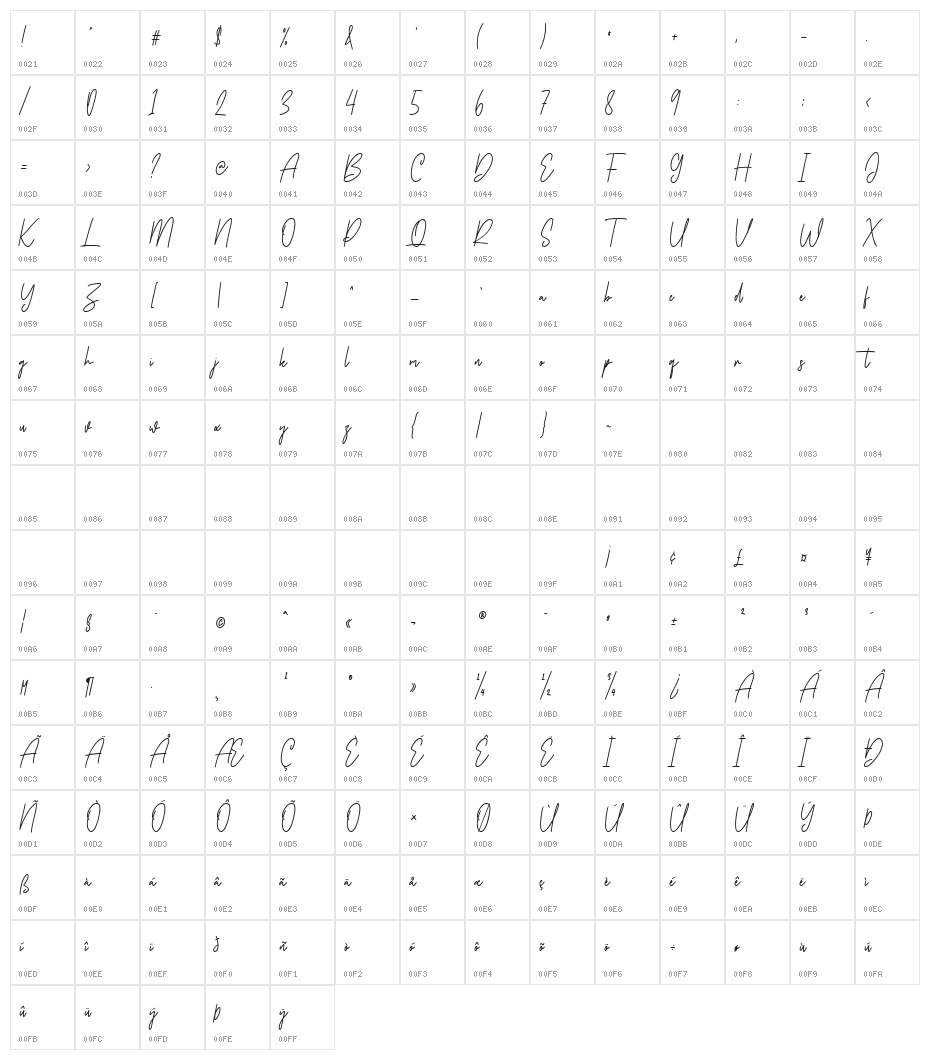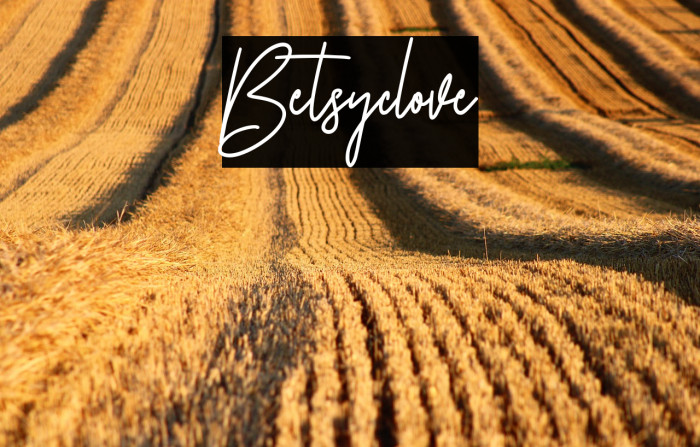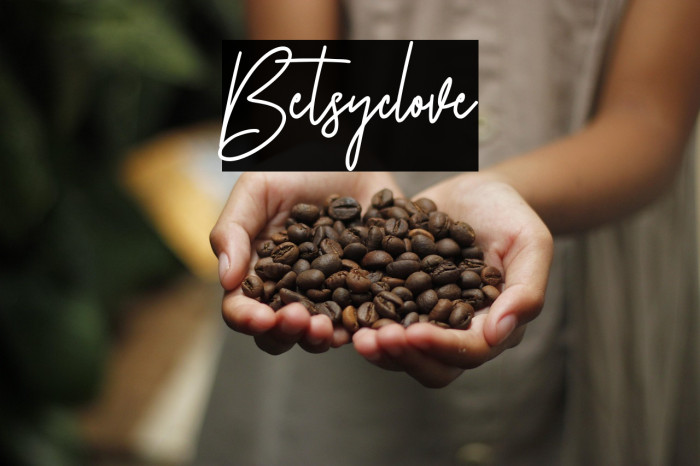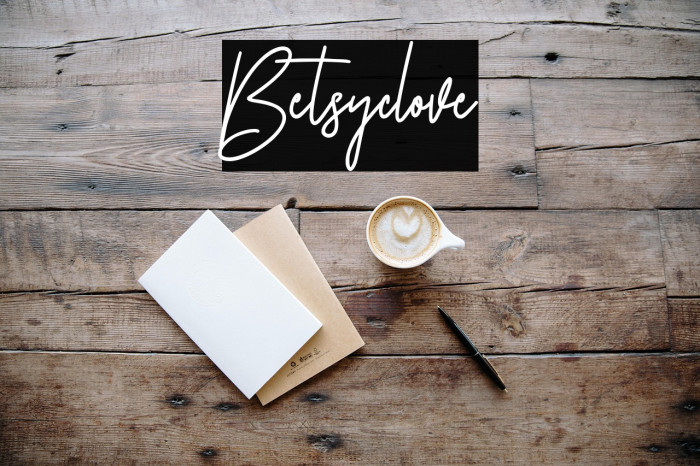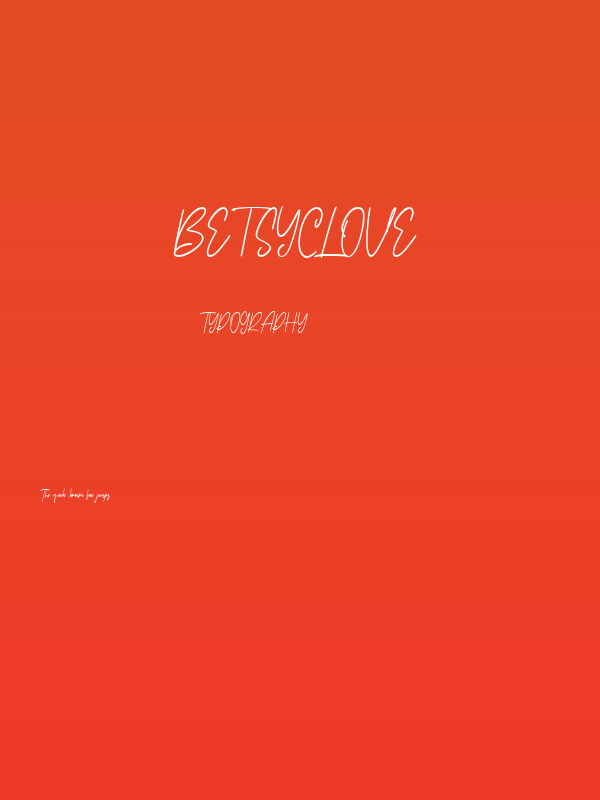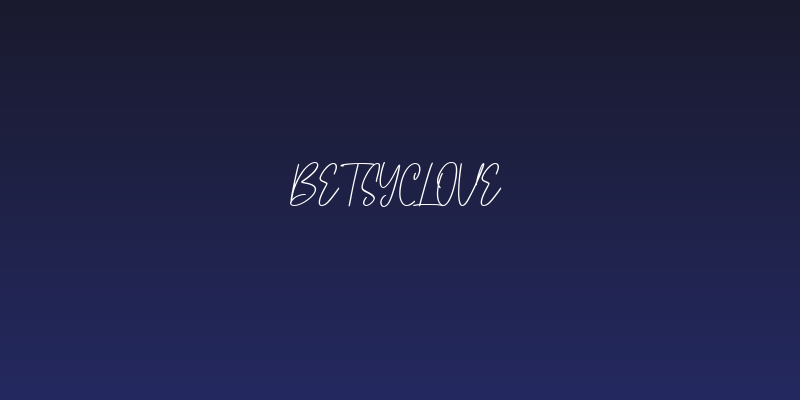
Betsyclove Font
Betsyclove Description
A flowing, handwritten script font with a casual and elegant style, featuring smooth curves and a natural, personal touch.
| Use Case | Logos, Invitations |
| Proposed Projects | Invitations, greeting cards, personal branding. |